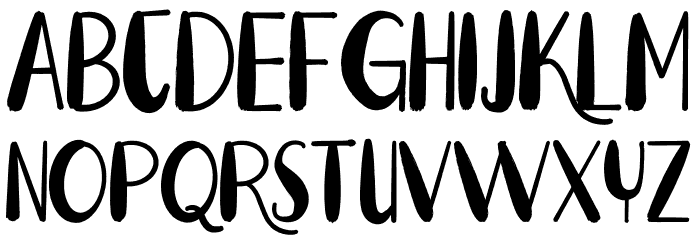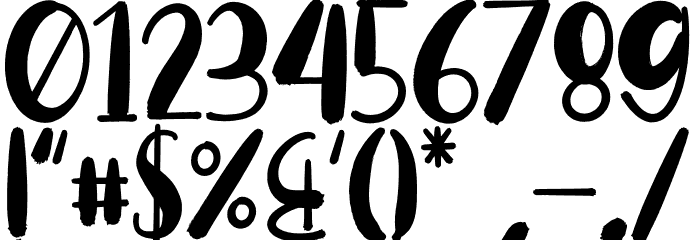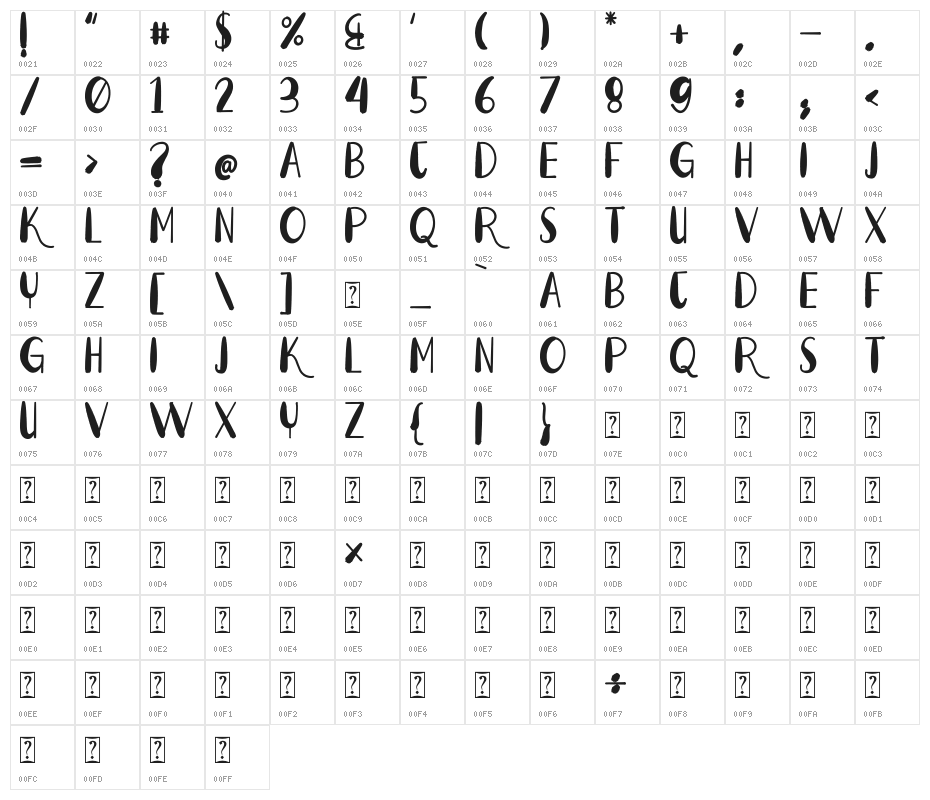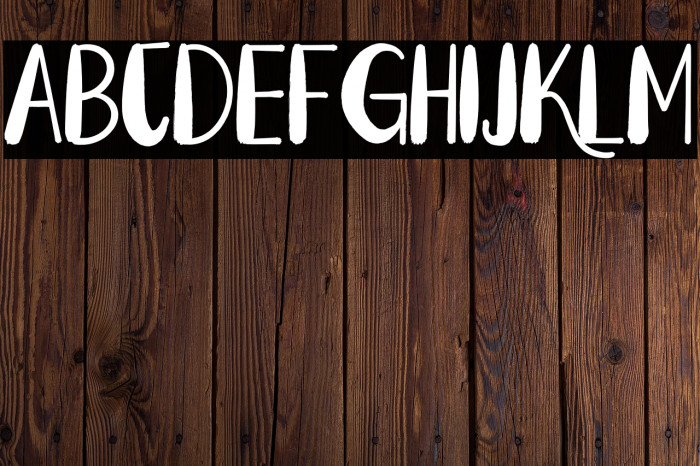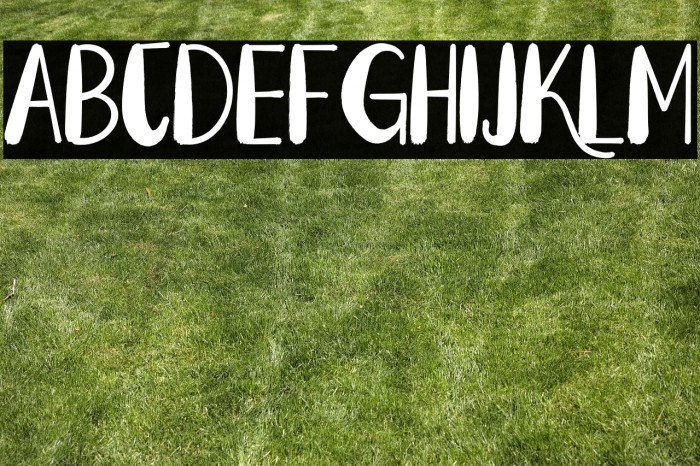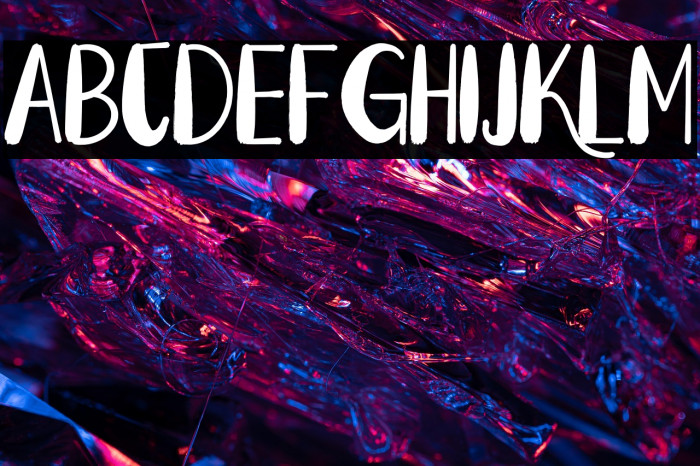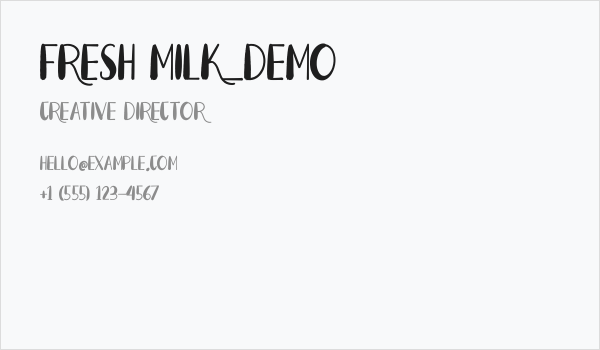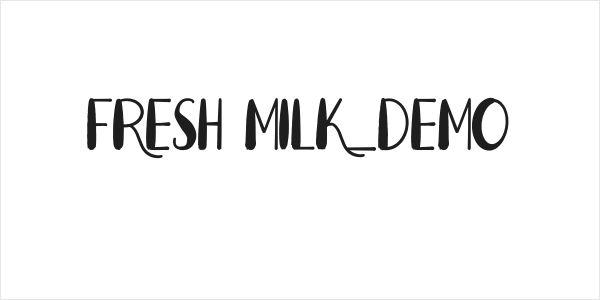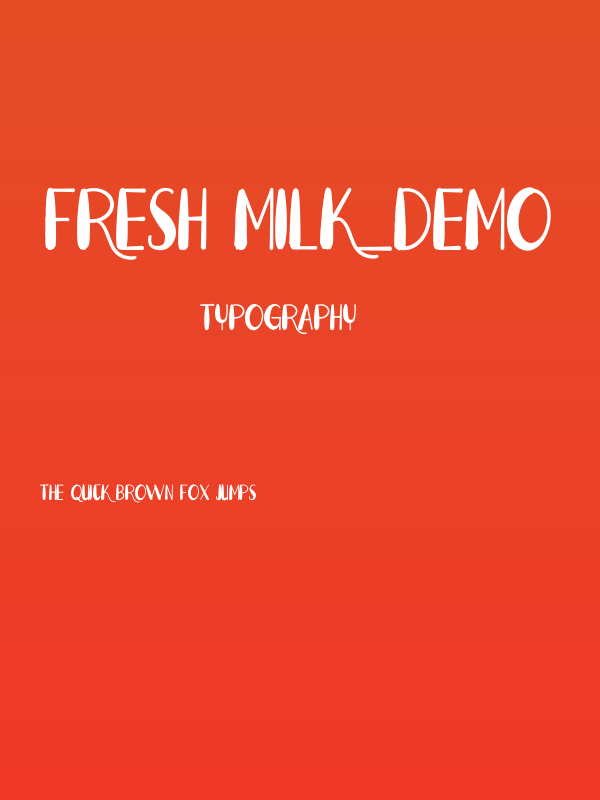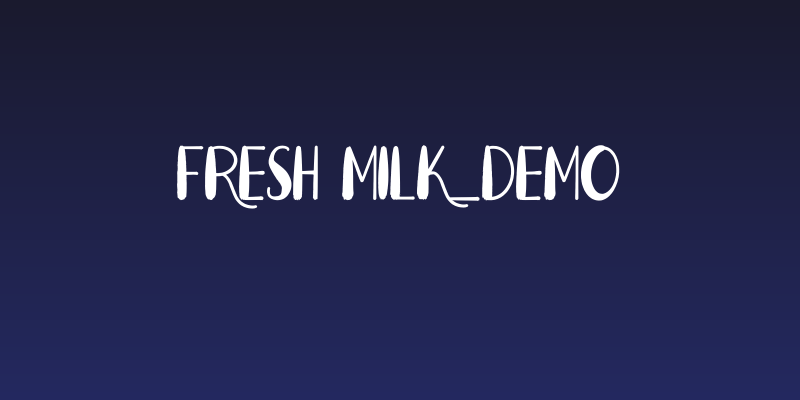
Fresh Milk_DEMO Font
This font features a bold and playful handwritten style, characterized by its thick, uneven strokes and slightly irregular shapes that convey a sense of spontaneity and creativity. The uppercase and lowercase letters maintain a consistent height, while the numbers and special characters integrate seamlessly with the overall design. The font's organic feel is enhanced by its brush-like texture, making it ideal for projects that require a personal touch or a casual, artistic vibe. Its unique style stands out, making it suitable for eye-catching headlines or creative branding.
A bold, playful handwritten font with a brush-like texture.
- Font: Fresh Milk_DEMO
- Proposed Projects: Ideal for creative branding, eye-catching headlines, posters, and artistic projects.